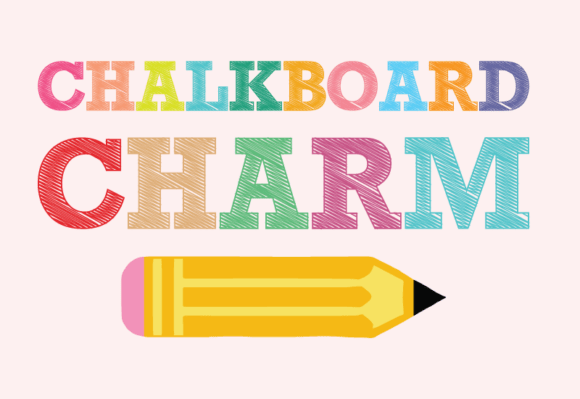
Unlocking the Whimsy of Education: The Power of Chalkboardcharm Regular Font
Who among us hasn’t scribbled away in a notebook, dreaming of the next great adventure or mastering a new subject? For designers, that same spark of creativity can be harnessed to craft engaging educational materials that inspire and captivate young minds. One tool that embodies this spirit is the Chalkboardcharm Regular Font – a delightful display font that brings a touch of retro charm to the digital age.
With its unique blend of traditional slab serifs and playful textures, Chalkboardcharm Regular Font is the perfect choice for designers looking to add a touch of whimsy to their educational projects. From back-to-school designs to classroom signage, this font’s bold legibility and lighthearted personality make it an invaluable asset for anyone working in the education sector.
Key Features of Chalkboardcharm Regular Font
- Unique Characteristics: Distressed, chalkboard-inspired design with a warm, vintage feel
- Font Style: Regular, with a subtle texture and imperfections that resemble handwritten chalkboard text
- Font Weight: A single weight, suitable for body text and titles
Chalkboardcharm Regular Font Review
Overall, I think Chalkboardcharm Regular is a charming font that can add a touch of whimsy to your designs. Here are a few things that work well:
- ✨ Unique and playful aesthetic: The Chalkboardcharm Regular font has a distinctive, hand-written feel that’s perfect for adding a bit of personality to your designs.
- ✨ Good legibility: Despite its informal appearance, the font is still relatively easy to read, making it suitable for body text and shorter paragraphs.
- ✨ Versatile: Chalkboardcharm Regular works well in a range of contexts, from kids’ educational materials to crafty DIY projects.
- ⚠️ Limited font sizes: The font can look a bit rough at larger sizes, so it’s best to stick to smaller font sizes (around 12-14pt) to get the best results.
- ⚠️ Not ideal for long blocks of text: While Chalkboardcharm Regular is great for short paragraphs and headings, it can be a bit tiring to read in large blocks of text.
Overall, I think Chalkboardcharm Regular is a great choice for designers who want to add a bit of personality to their work. With its unique aesthetic and good legibility, it’s a versatile font that can add a touch of whimsy to a wide range of designs.
For the best results, use Chalkboardcharm Regular Font in conjunction with distressed textures and muted color schemes.
1. Creating a vintage or retro-themed design.
2. Adding a distressed or worn look to text.
3. Creating a chalkboard or blackboard effect.